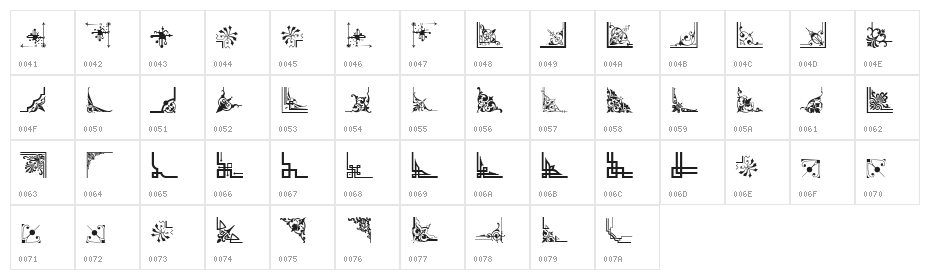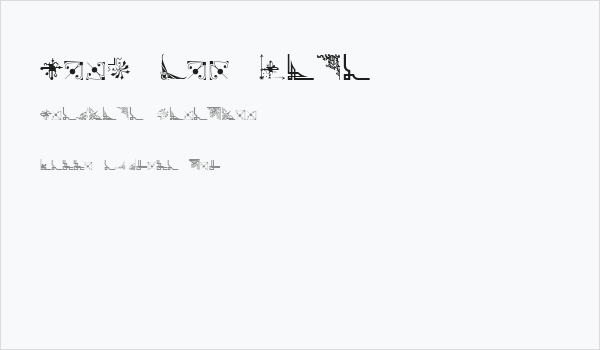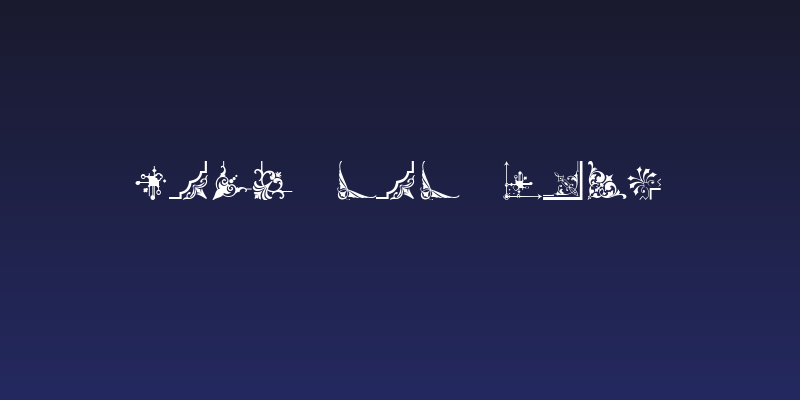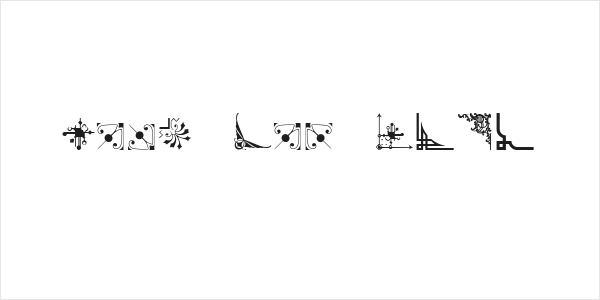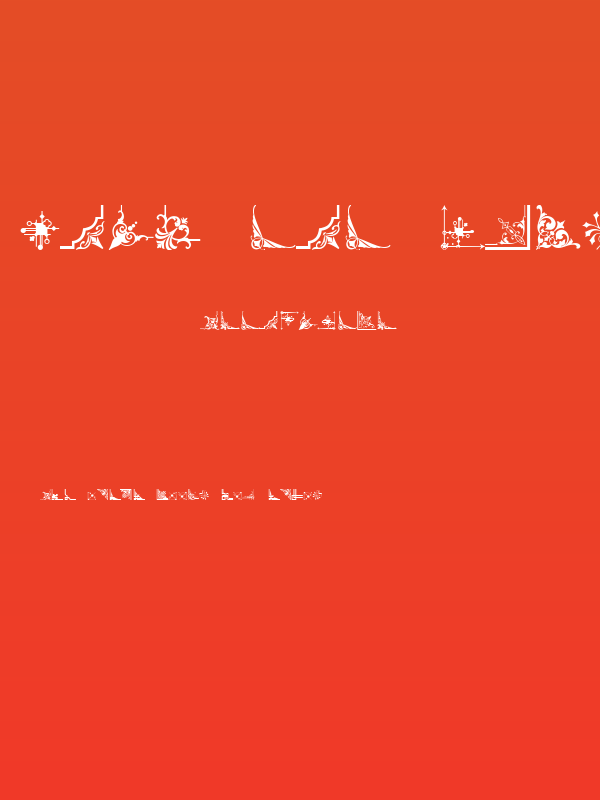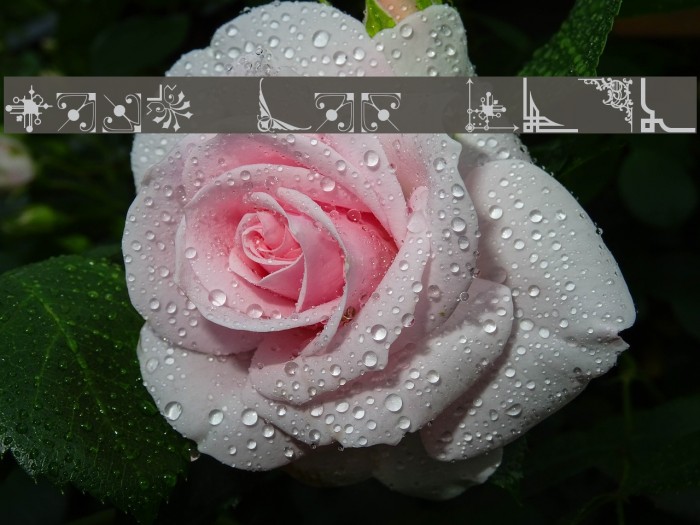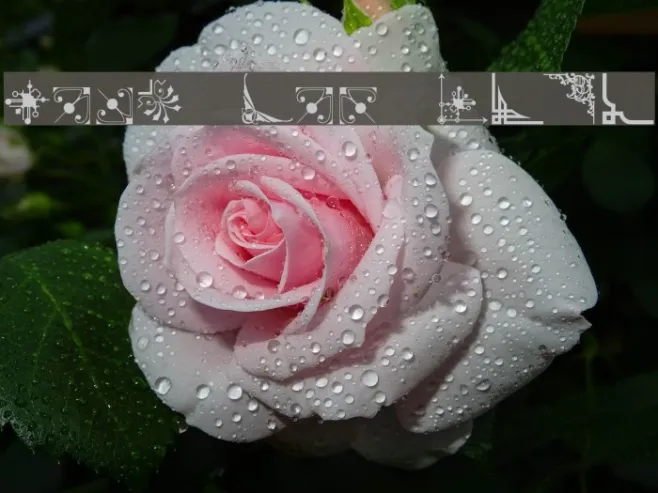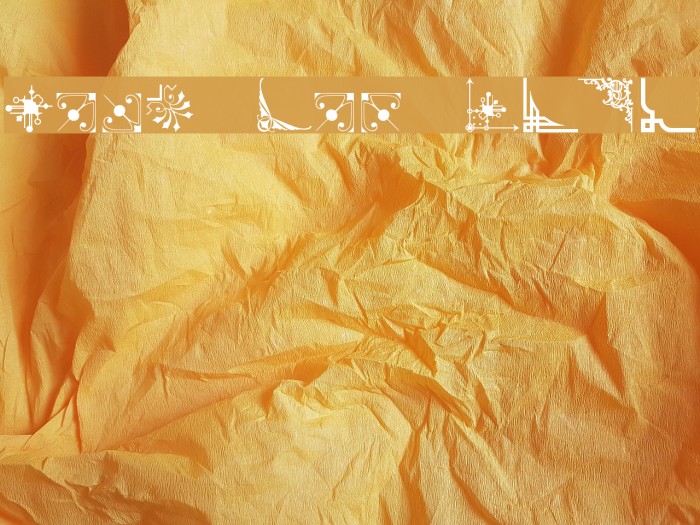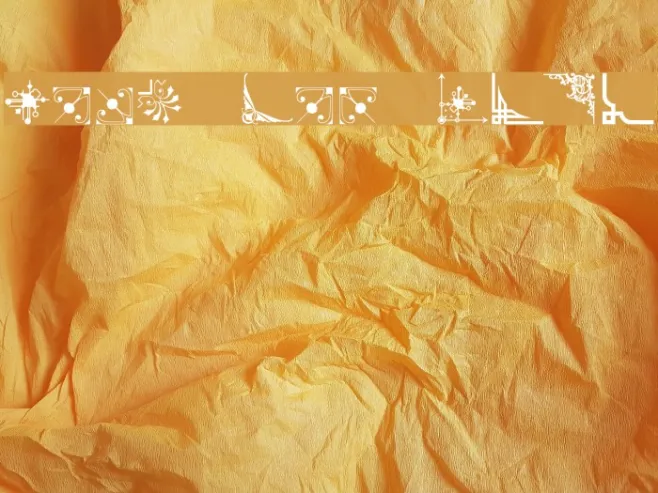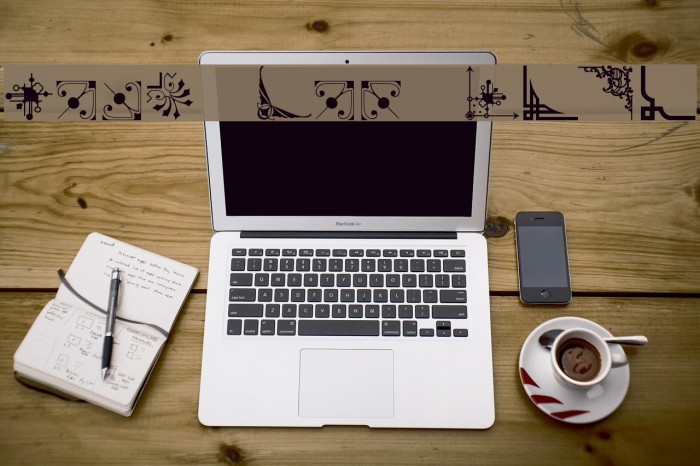
Corn Pop Five Font
Corn Pop Five Description
This design is a collection of ornate corner elements, each featuring intricate patterns and flourishes. The elements are highly decorative, showcasing a variety of styles from floral motifs to geometric shapes. These designs are ideal for adding an elegant touch to borders or frames, enhancing the visual appeal of any project. The detailed craftsmanship is evident in the delicate curves and lines, making them suitable for projects that require a sophisticated and artistic flair.
| Use Case | Borders, Frames, Decorative elements |
| Proposed Projects | These designs are perfect for use in invitations, certificates, decorative borders, and vintage-themed projects. |